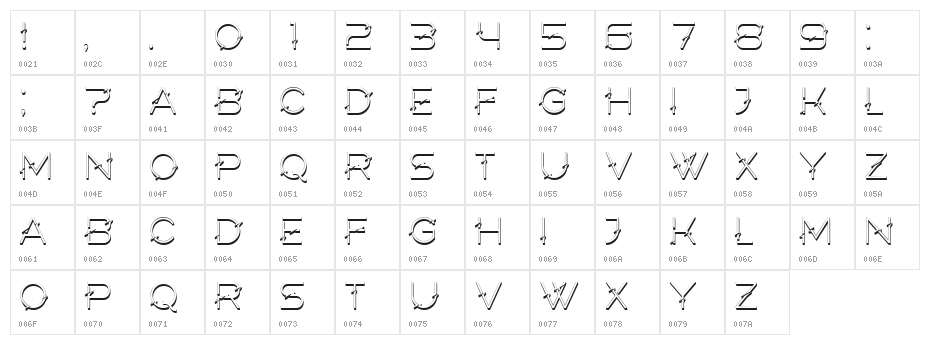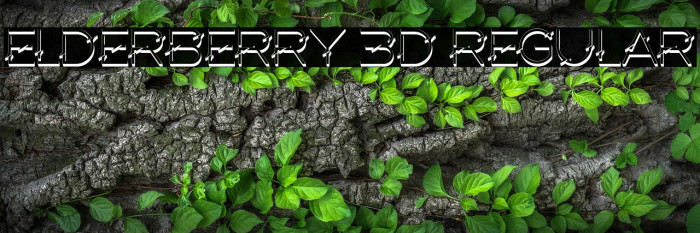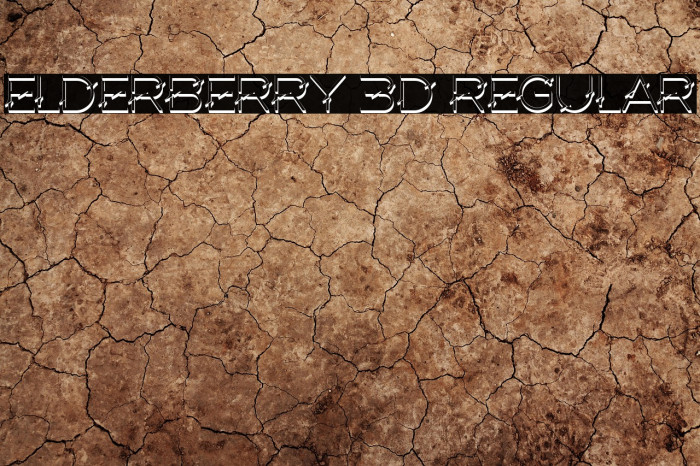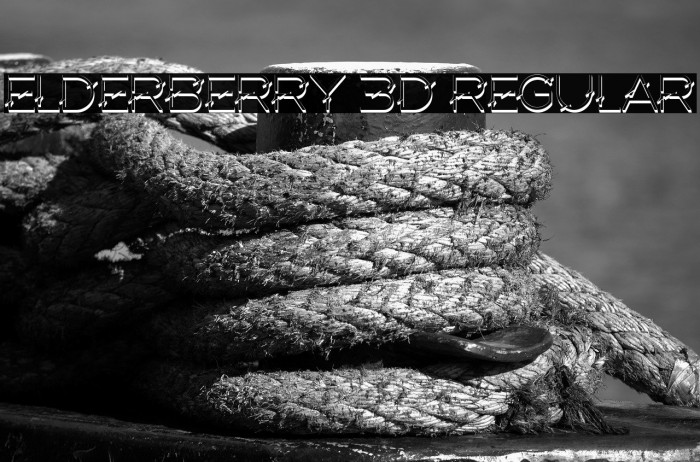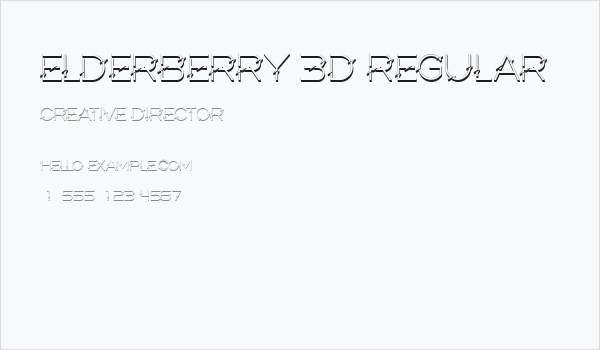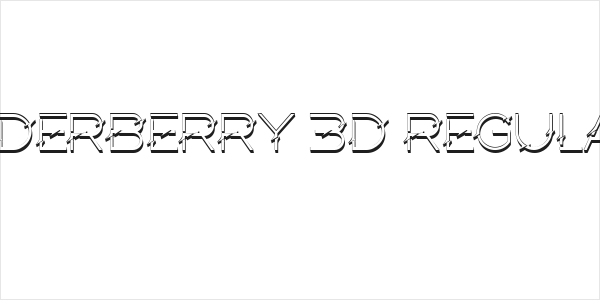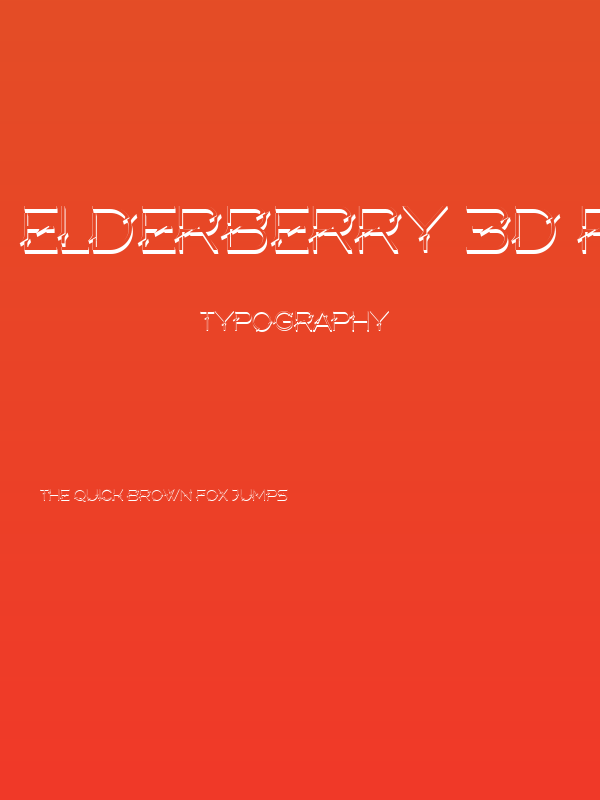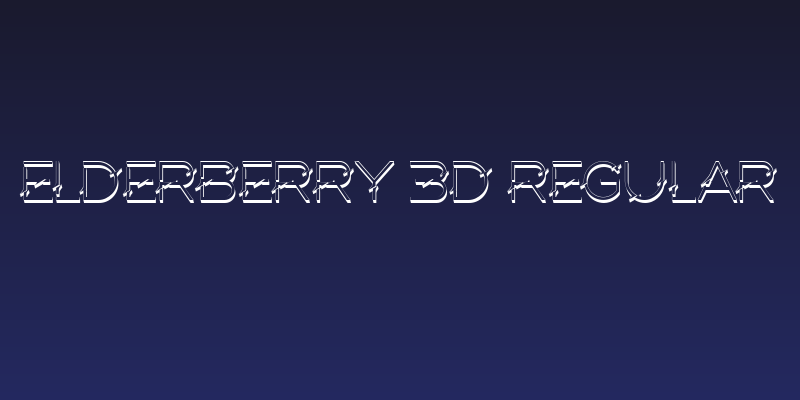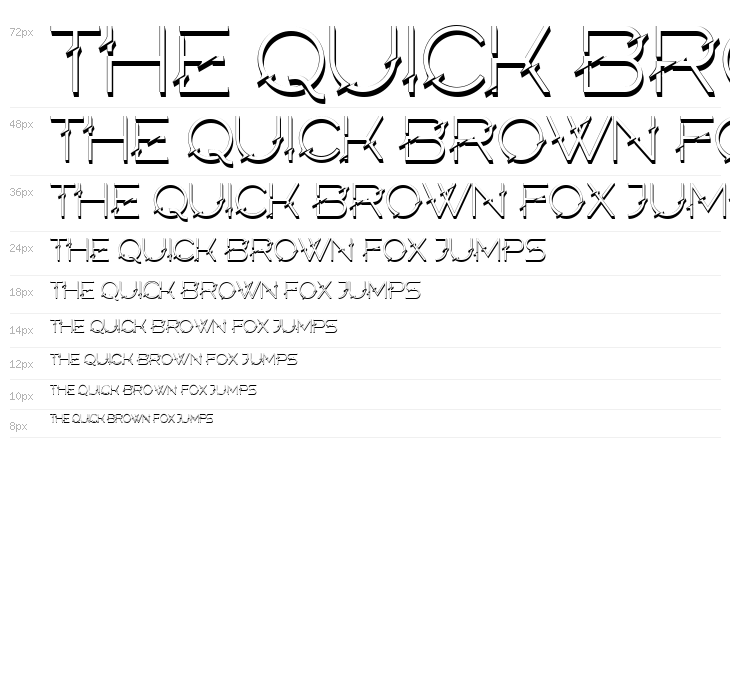
Elderberry 3D Regular Font
Elderberry 3D Regular Description
This font features a unique 3D effect with a futuristic and geometric design. Each character is crafted with a combination of sharp angles and smooth curves, creating a dynamic and eye-catching appearance. The letters are outlined with a shadow effect that enhances the three-dimensional look, making it stand out on any background. The font maintains a consistent structure across uppercase, lowercase, and numerical characters, ensuring readability while adding a modern twist. Special characters are also designed with the same attention to detail, making this font versatile for various creative projects.
| Proposed Projects | Ideal for sci-fi themed designs, video game titles, posters, and modern branding. |